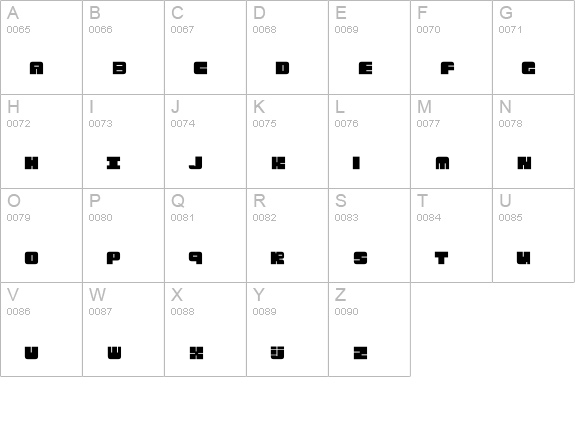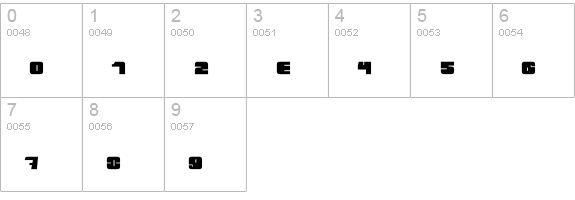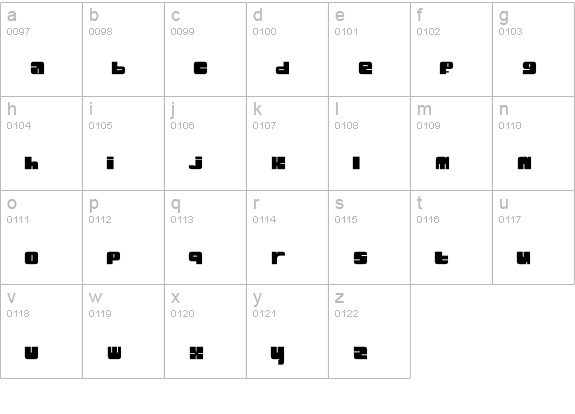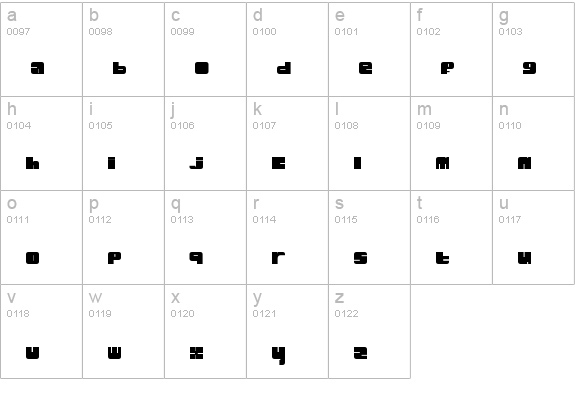
New Blockster Font Details
Introducing New Blockster font, a modern and versatile typeface that exudes a bold and contemporary vibe. With its clean lines and geometric shapes, this font is perfect for a wide range of design projects, from logos to branding to headlines. The New Blockster font offers a unique twist on the traditional block letter style, making it stand out from the crowd. Best of all, New Blockster font is available for free download at FontsMarket.com. Whether you're a designer looking to add a fresh touch to your work or a business owner seeking a standout font for your brand, New Blockster font has got you covered. Don't miss out on this fantastic opportunity to elevate your designs with this eye-catching and stylish typeface. Download New Blockster font now and let your creativity soar!